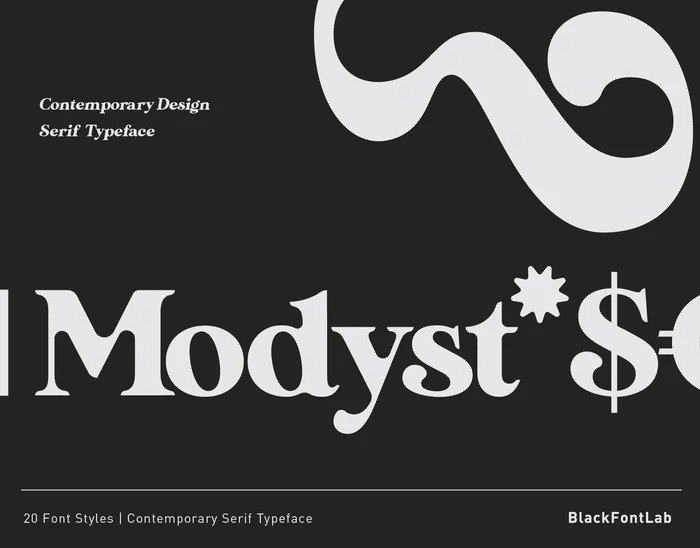
Modyst Font
Modyst Serif Font is a new eye-catching playful typeface which puts a smile on your projects and will inspire you to create something fun and memorable. It’s a contemporary serif typeface that is designed with slight curves on most of the glyphs edges, make it looks smooth and beautiful.
This typeface can be used on wide range of designs such as prints, logos, covers, presentations, advertisements or any marketing and branding related projects. Modyst comes in 20 font styles, check the details below. Enjoy!